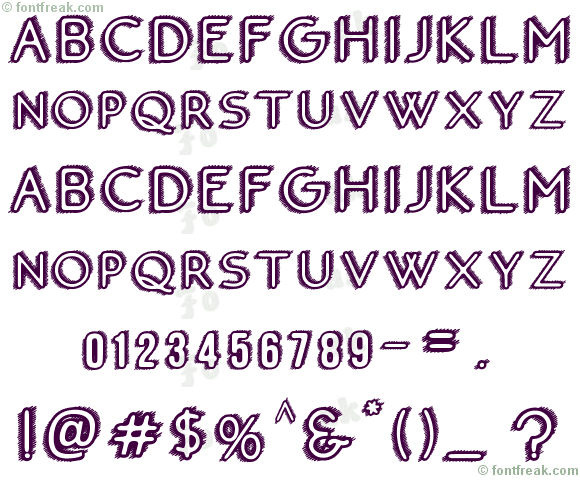
Hotel California
About Hotel California
The Hotel California font by woodcutter Manero is a captivating display typeface that effortlessly blends a vintage charm with a contemporary aesthetic. This font is characterized by its unique, slightly distressed appearance, reminiscent of classic signage from the golden age of California. The stroke weight varies, creating a dynamic contrast that adds depth and visual interest to its letters. The spacing is thoughtfully designed, ensuring legibility while maintaining a playful yet refined look. Decorative elements, such as the rounded edges and subtle embellishments, give this typeface an inviting feel that draws the eye.
Ideal for a variety of applications, the Hotel California font shines in contexts like restaurant menus, where it can evoke a warm, welcoming atmosphere. It also works beautifully for wedding invitations, bringing a touch of elegance and nostalgia to the special day. Movie posters can benefit from its distinctive character, as it captures attention and evokes a sense of storytelling. Additionally, small business branding, especially for cafés and boutiques, can leverage this font to create a memorable identity that stands out in a crowded market.
Targeted toward graphic designers, small business owners, and content creators, the Hotel California font serves as an excellent resource for those looking to infuse their projects with personality and charm. The free license allows for easy accessibility, making it an appealing choice for both personal and commercial use.
What sets the Hotel California font apart is its ability to evoke a sense of place and nostalgia while remaining versatile enough to adapt to various design needs. With its unique style, it not only enhances visual communication but also leaves a lasting impression on audiences. Don’t miss out on the opportunity to elevate your designs with the Hotel California font free download.